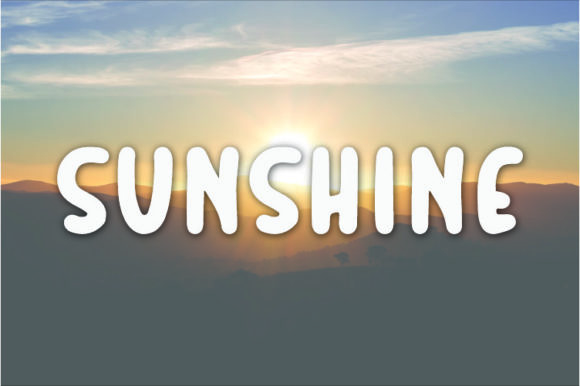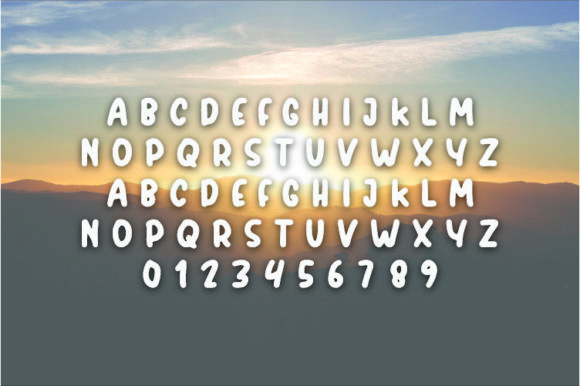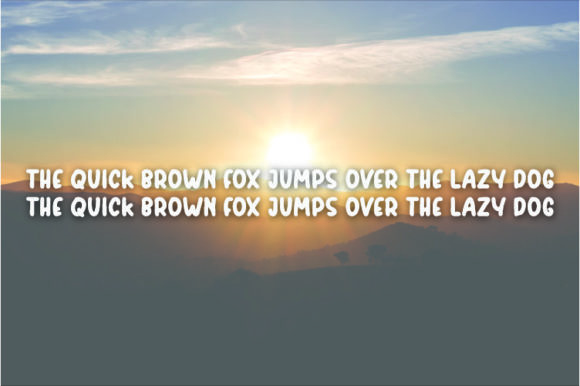
About Sunshine Font
Sunshine is a clean, friendly and natural handwritten font. Whether you’re using it for crafts, digital design, presentations, or making greeting cards, this font has the potential to become your favorite go-to font, no matter the occasion!